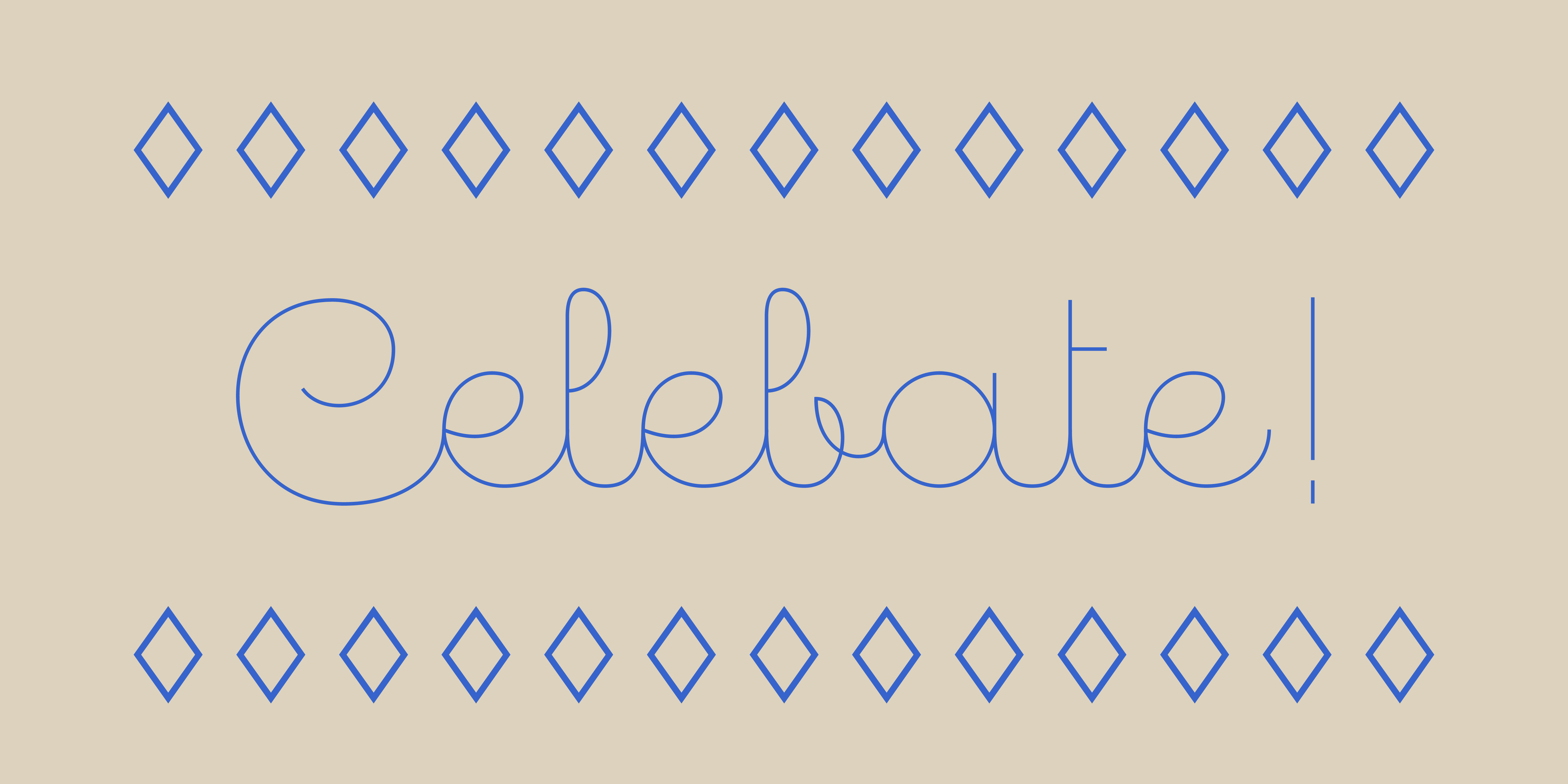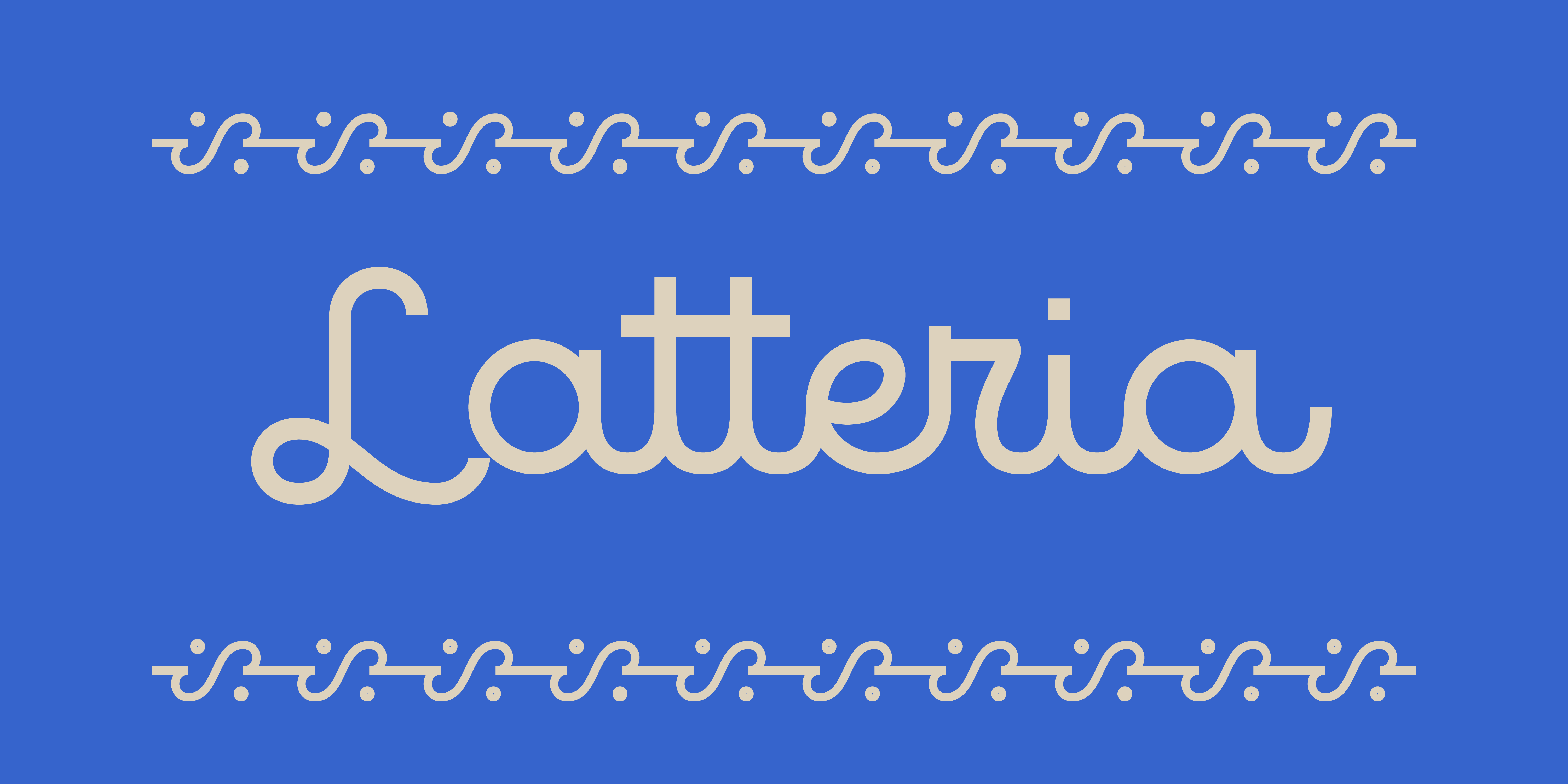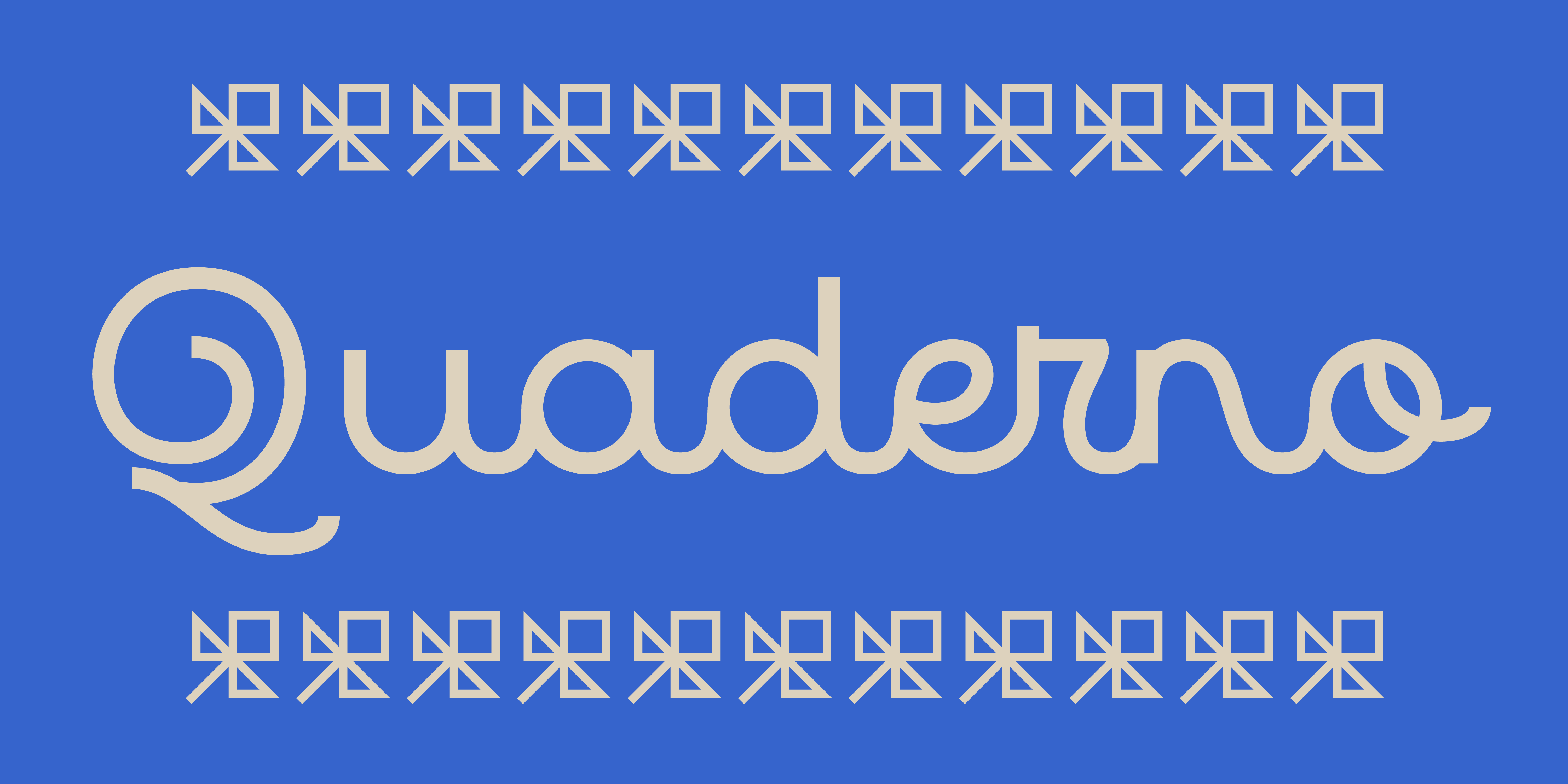
Quaderno
Light and monolinear upright script typeface
Quaderno
Designed by Resistenza Type Foundry
This connected font combines elements of the traditional Italian script Bella Scrittura and French script. Quaderno is suited for middle length texts and headlines and evokes both vernacular and commercial lettering of the 20th century and a typeface for school and children book and publishing purposes.